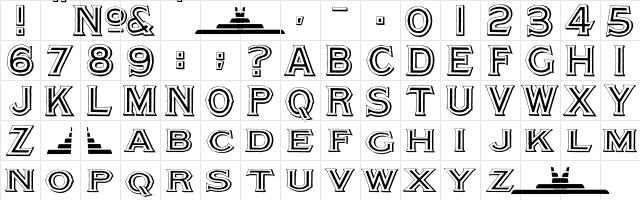
Altea Normal Font Preview
Altea Normal
Design Context for Altea Typeface
Altea is a composed and adaptable typeface that performs quietly and consistently across a wide range of design contexts.